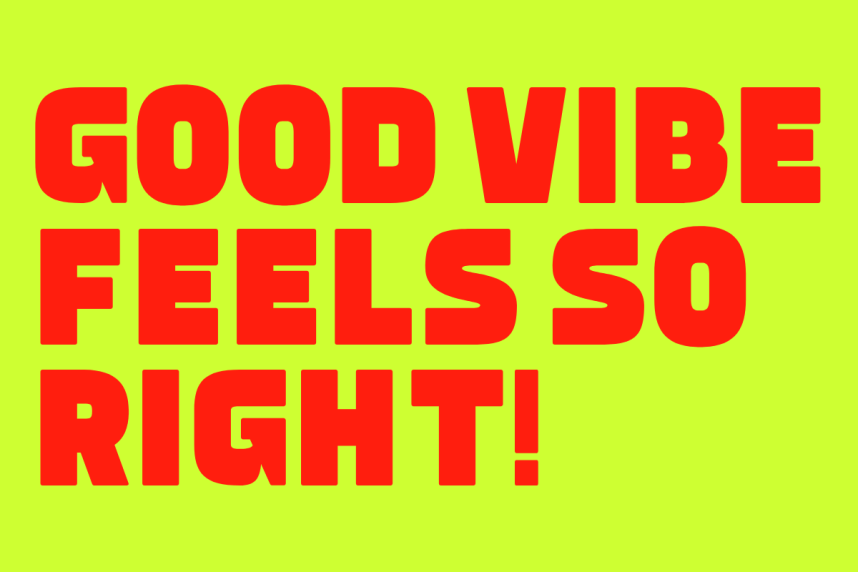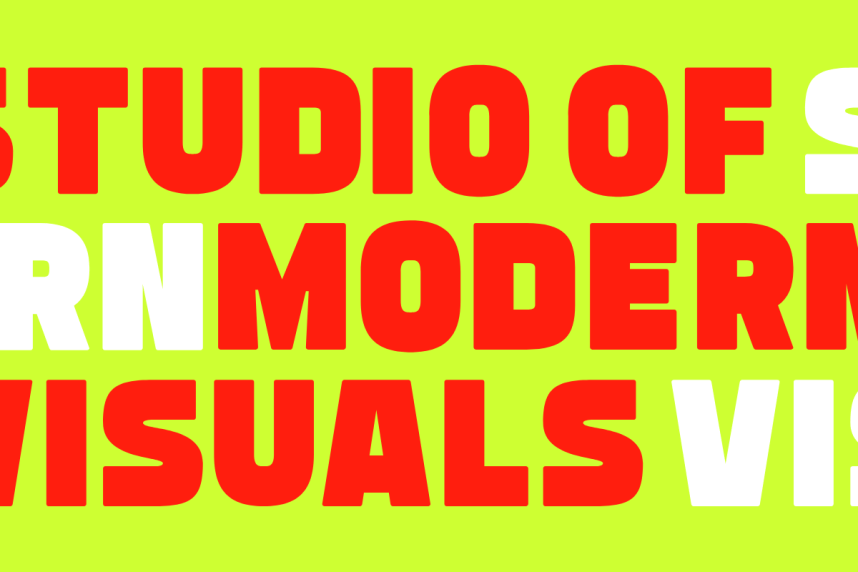
Goodies – Retro Bold Heavy Sans Serif Font
Goodies – Retro Bold Heavy Sans Serif Font a bold, commanding, and delightfully nostalgic statement with Goodies, an ultra-bold heavy retro sans serif font engineered for creators who want their headlines to pop with a playful, high-energy charm. Meticulously structured with a massive display weight, solid geometric baselines, and softly rounded corners, this versatile font brings an instant blend of vintage street culture and clean modern commercial professionalism to any creative canvas.
Whether you are an apparel designer launching a fresh streetwear collection, a graphic artist establishing a bold lifestyle brand, or a high-volume print-on-demand seller optimizing listings for search engine conversions, Goodies delivers unmatched readability and outstanding shelf appeal. For the crafting community and DIY enthusiasts, every single glyph has been technically polished and vector-optimized to ensure a smooth, effortless cutting and weeding experience on digital cutting machines like Cricut and Silhouette. Bring the powerful, chunky, and timeless aesthetic of Goodies into your commercial design toolkit today!